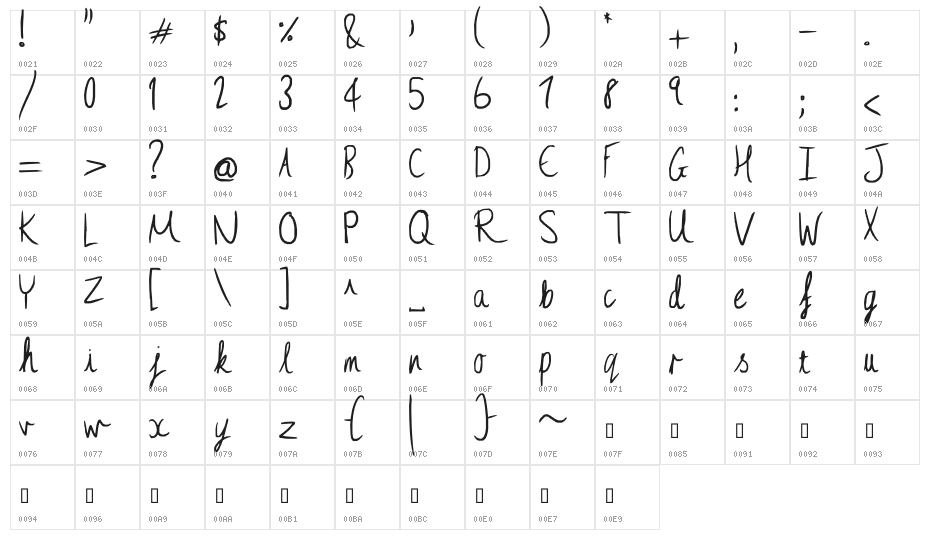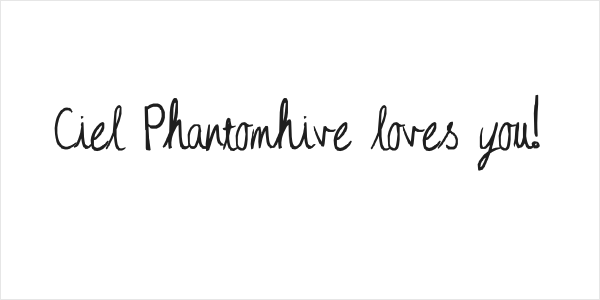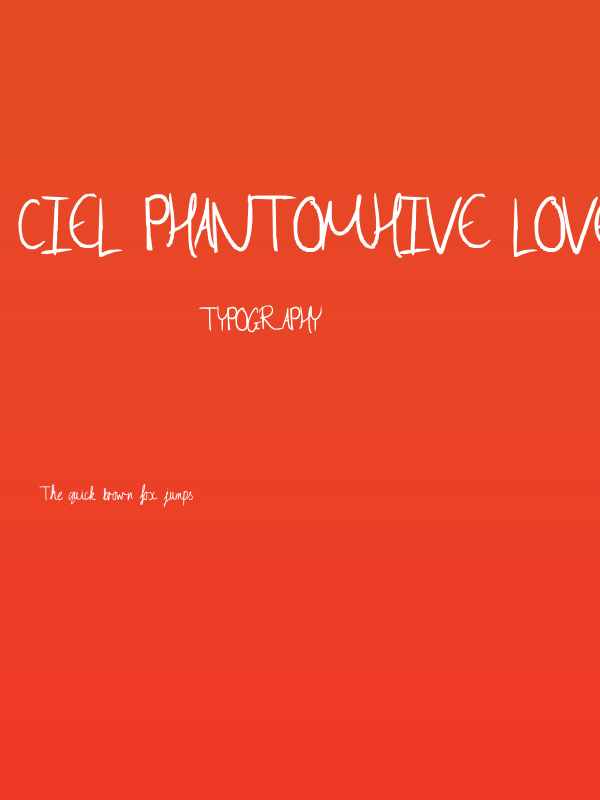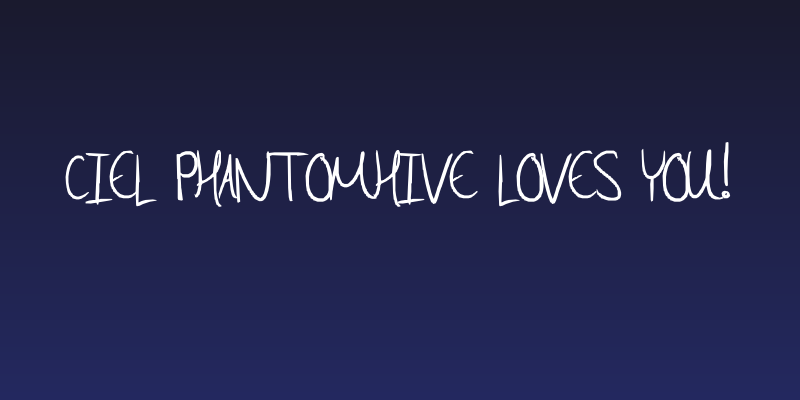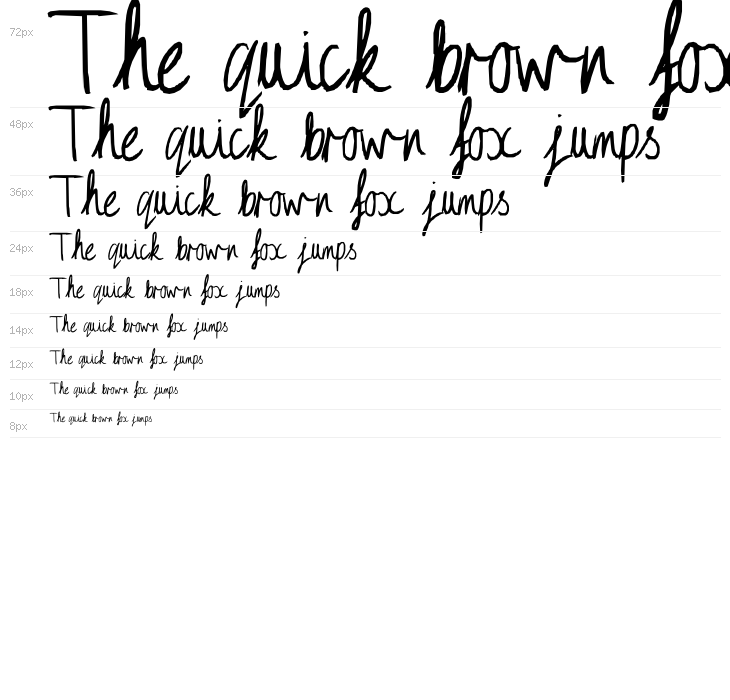
Ciel Phantomhive loves you! Font
Ciel Phantomhive loves you! Description
This font exhibits a playful and casual handwritten style, characterized by its loose and flowing strokes. The letters are unevenly sized, giving it an informal and personal touch. The uppercase letters maintain a consistent height, while the lowercase letters vary more in size, adding to the whimsical nature of the design. The numerals and special characters follow the same casual aesthetic, with a slightly irregular alignment that enhances the handwritten feel. The overall appearance is dynamic and energetic, making it suitable for projects that require a personal or creative touch.
| Use Case | Logos, Headlines, Informal text |
| Proposed Projects | Ideal for greeting cards, personal notes, creative projects, and informal branding. |